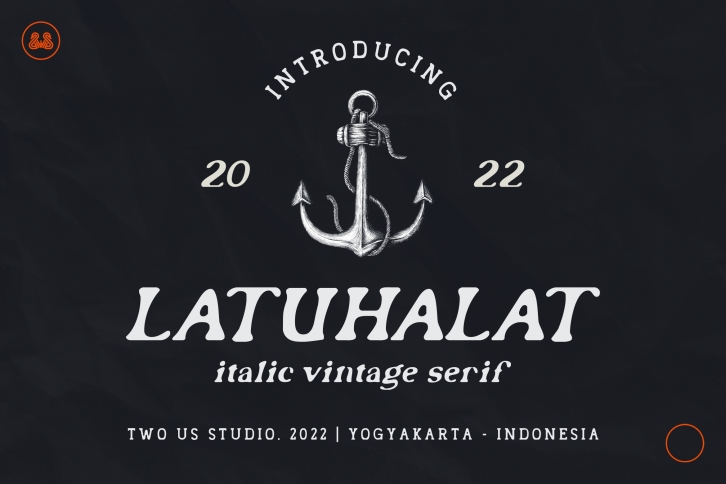
Latuhalat is a vintage and italic serif font. This creative retro font can easily become your favorite. It can be used for books, magazines, social media posts, invitations, and so much more! So add it to your creations and take your designs to the next level!